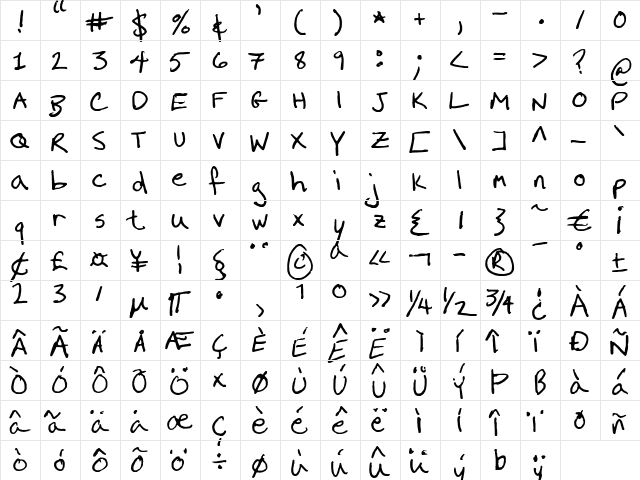
FG Edvin Regular
Design Context for FG Edvin Typeface
FG Edvin is a composed and adaptable typeface that performs quietly and consistently across a wide range of design contexts.